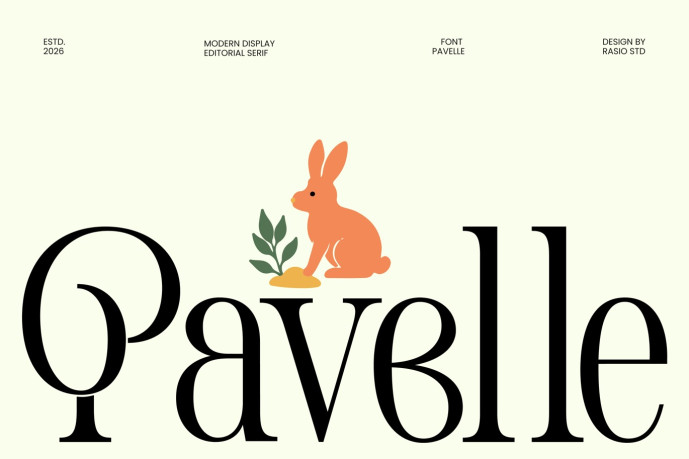
Pavelle Modern Editorial Serif Font
Pavelle Modern Editorial Serif Font is a modern editorial display serif that blends timeless elegance with refined contemporary styling. Featuring graceful high-contrast strokes, elongated proportions, and delicately sculpted curves, this typeface creates a luxurious visual presence while maintaining excellent readability at display sizes. The carefully balanced letterforms deliver a sophisticated rhythm, making every headline feel polished, expressive, and memorable without overwhelming the overall composition. Its distinctive serif construction provides an upscale personality that enhances premium products and creative storytelling, helping designers establish a refined and exclusive visual identity across both print and digital platforms.
Pavelle also adapts seamlessly across both digital and print media, making it a versatile choice for luxury fashion brands, beauty and skincare products, cosmetic packaging, editorial magazines, boutique businesses, wedding invitations, jewelry branding, premium product labels, restaurant identities, hotel branding, lifestyle publications, creative agencies, social media campaigns, portfolio presentations, book covers, and sophisticated logo design. Whether used as a bold standalone headline or combined with a clean serif for supporting text, the typeface delivers a refined hierarchy that enhances readability while reinforcing an upscale brand image. Its elegant structure helps establish a memorable visual identity, making every title, logo, or promotional message feel distinctive, premium, and thoughtfully crafted for audiences seeking sophistication and lasting visual impact.
Uppercase & Lowercase
Numeral & Punctuations
Standard Ligatures